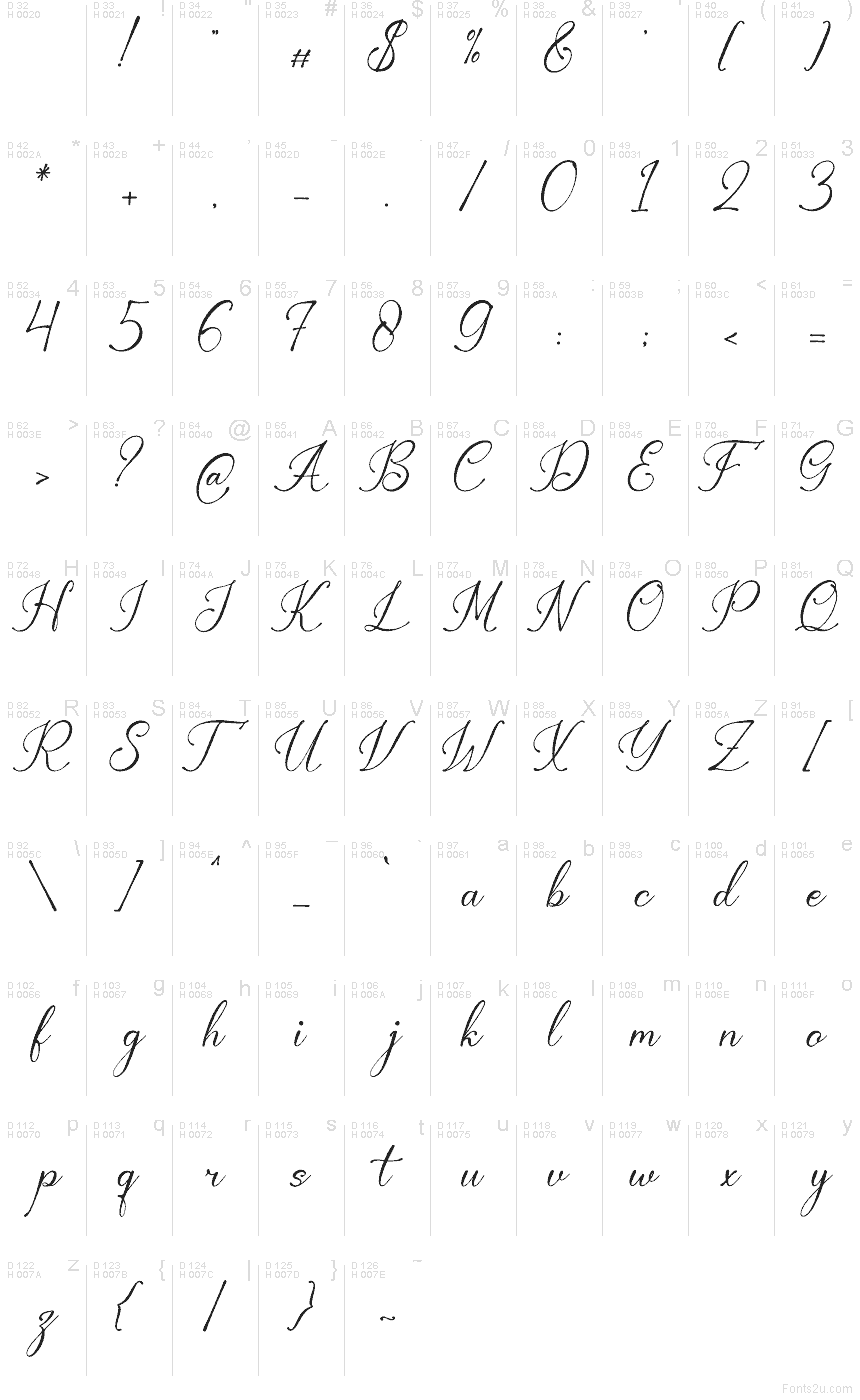
Berthaleya Ferbonitze by Denustudios is a free modern calligraphy font with long, airy loops and a smooth handwritten rhythm. The letters lean into sweeping entry and exit strokes, while the rounded joins and generous curves keep it feeling light, romantic, and a little formal.
It fits naturally in wedding stationery, beauty branding, boutique packaging, magazine cover lines, and social media title cards, where a few words can carry the mood. As a free font, it also works well for signature-style logos or drop-in headline moments, since those extended swashes give short names and phrases a graceful, drawn-by-hand finish.